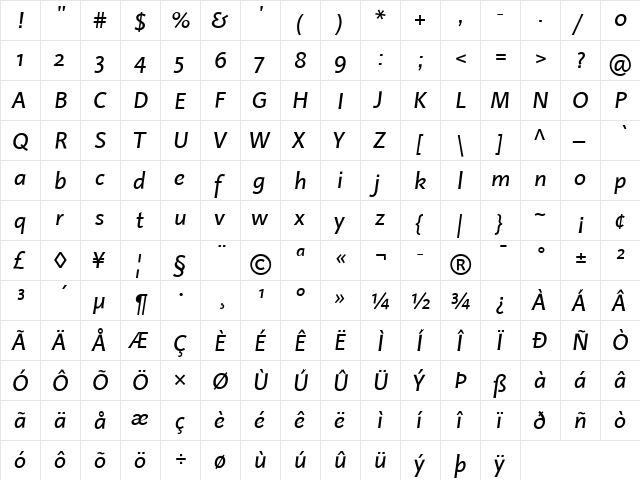
LinotypeProjekt Italic
Design Context for LinotypeProjekt Typeface
LinotypeProjekt is a composed and adaptable typeface that performs quietly and consistently across a wide range of design contexts. Its italic angle brings a sense of urgency and motion to the letterforms.
Pro Tip: Try LinotypeProjekt for annotation and caption copy alongside an upright companion — the contrast in angle creates a dynamic but ordered typographic system.